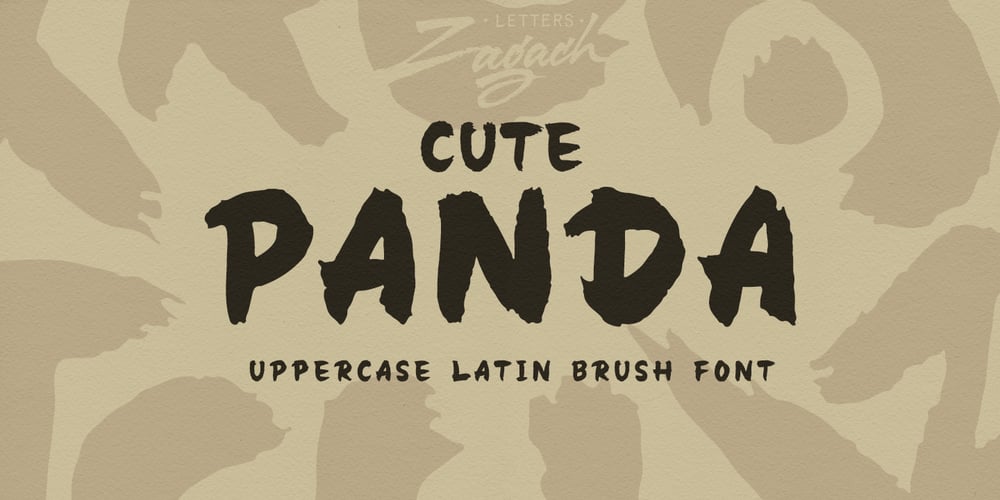
Cute Panda Font Family was designed by Yuriy Zahachevskyy and published by Zagach Letters. Cute Panda contains 1 styles and family package options. Cute Panda is an uppercase font by Zagach Letters. It’s a handwritten brush script which could be described as soft, fluffy and cute. Cute Panda has a variety of coded features to create unique text designs, stylistic alternates from A to Z and alternative numerals from 0 to 9 which makes your designs to look more natural, AE OE ligatures, currency symbols and punctuation. It is perfect for titles, headlines, greeting cards, stationery design, packaging, magazines, posters and more. Multilingual support. Extended Latin character base that covers most European languages.